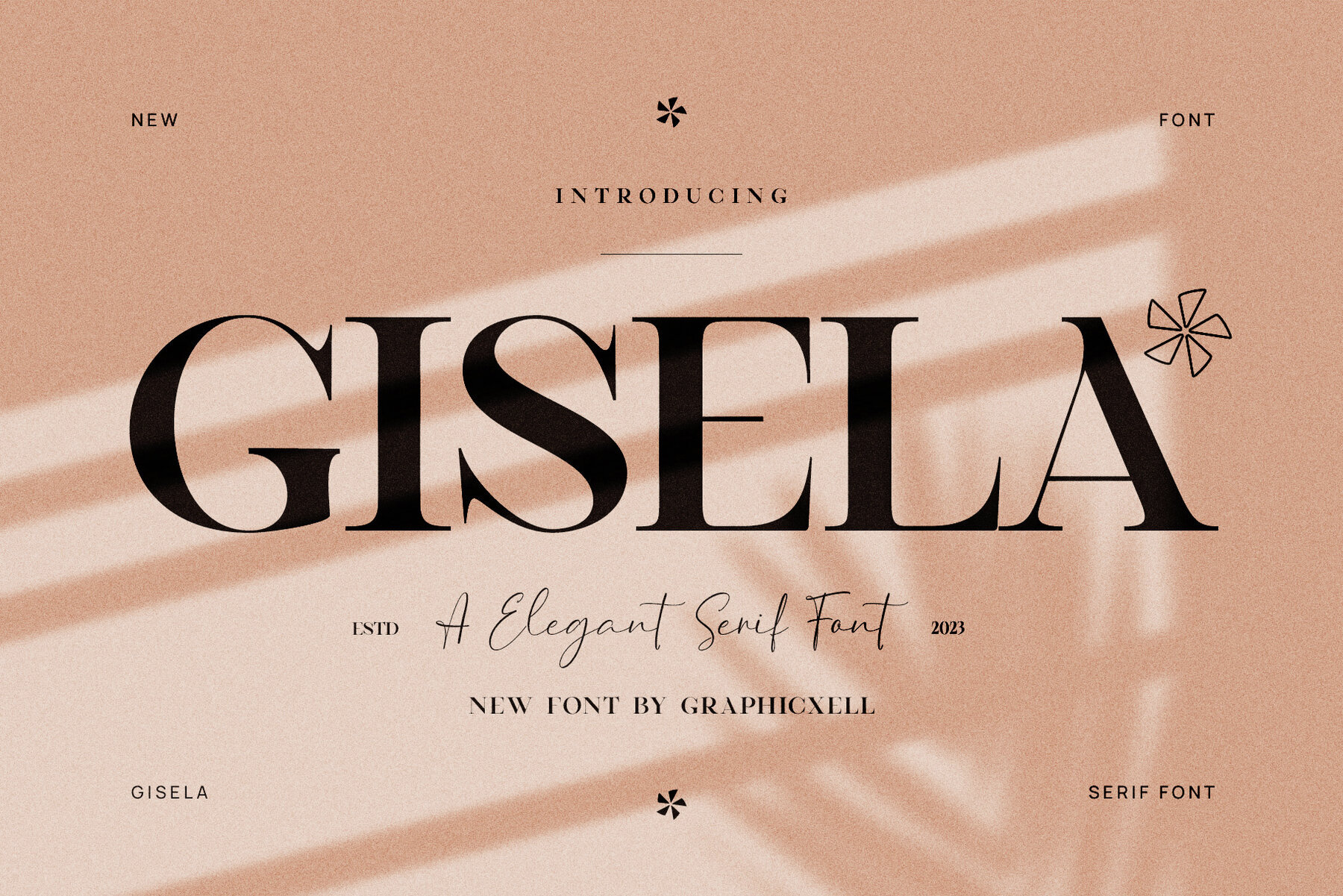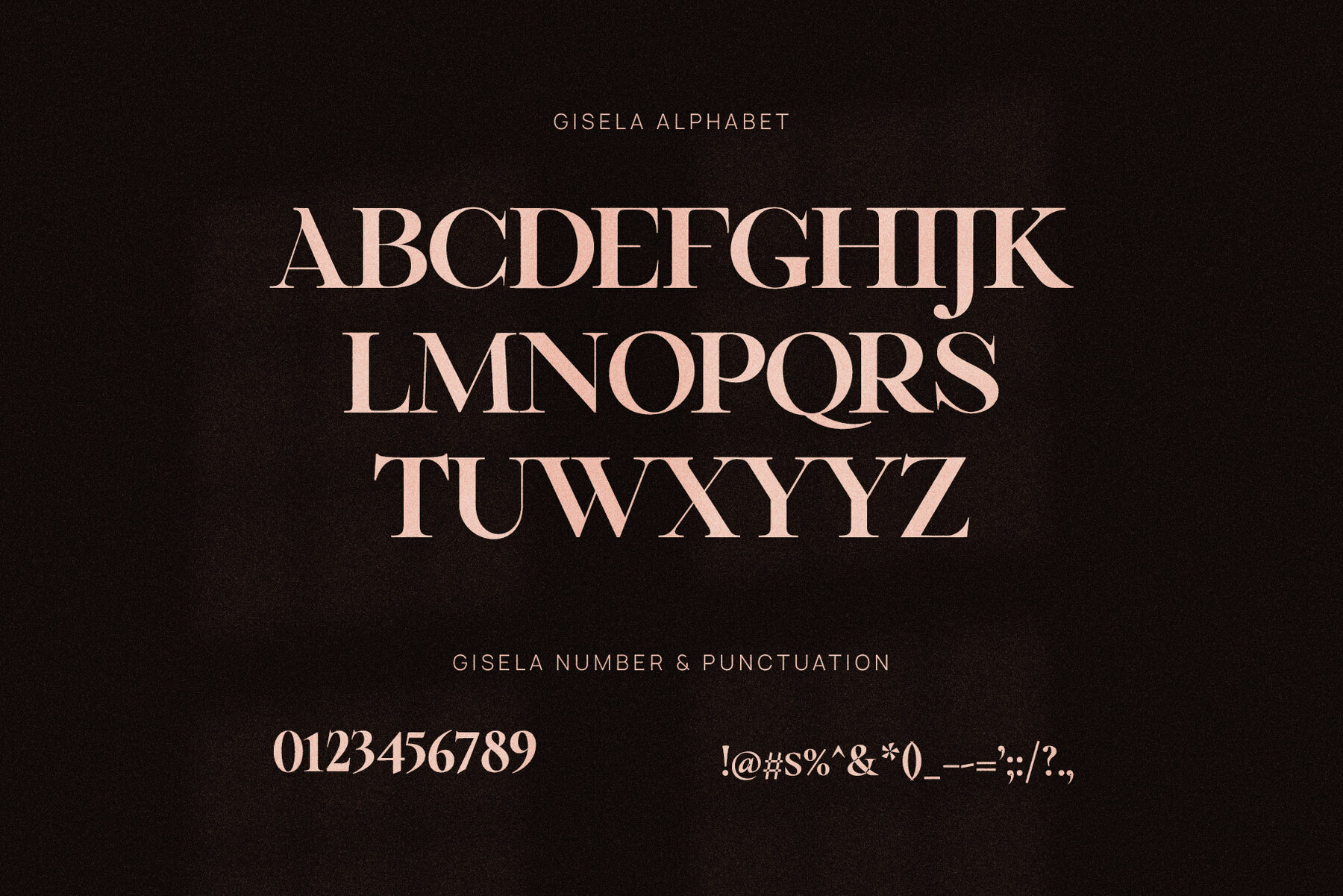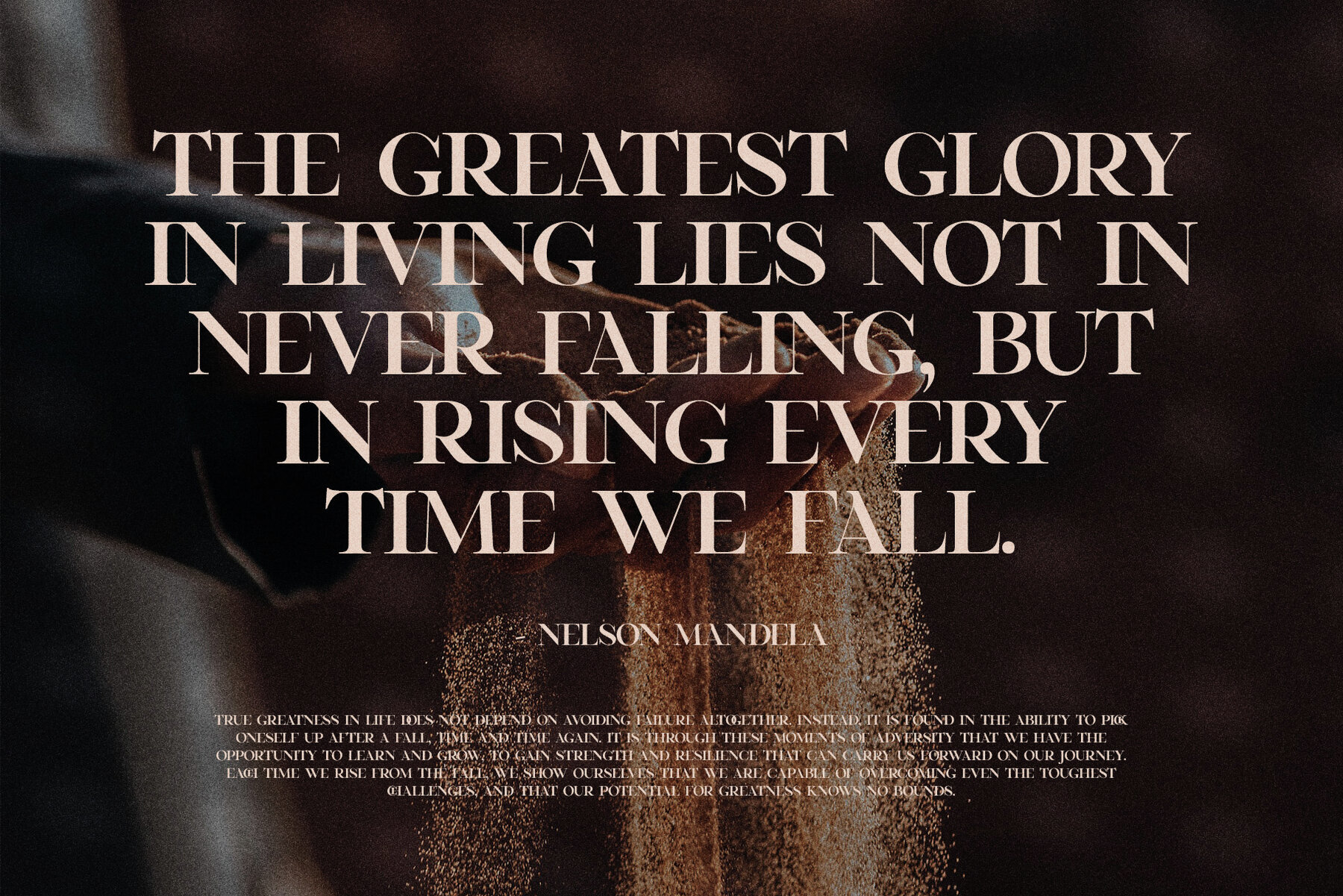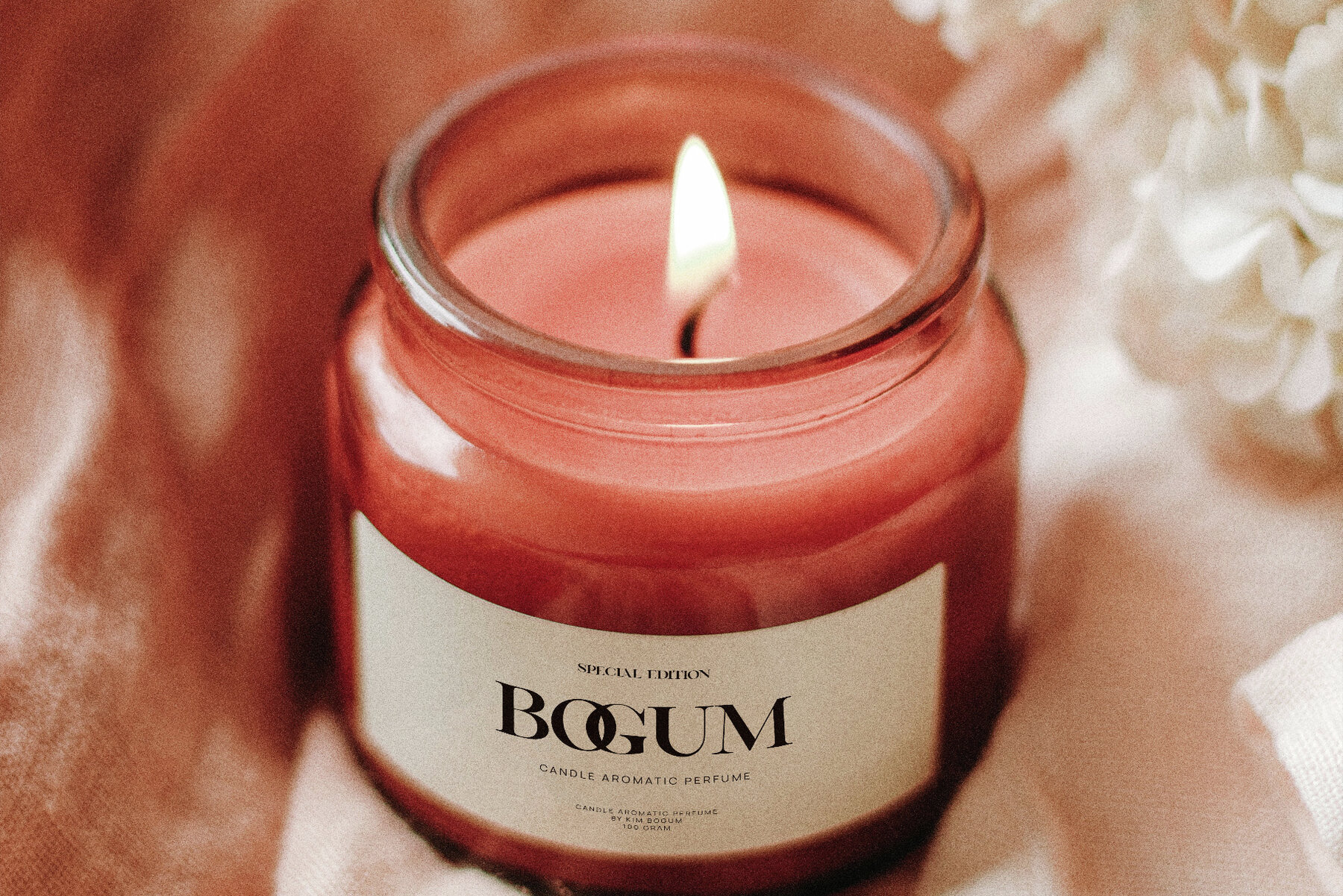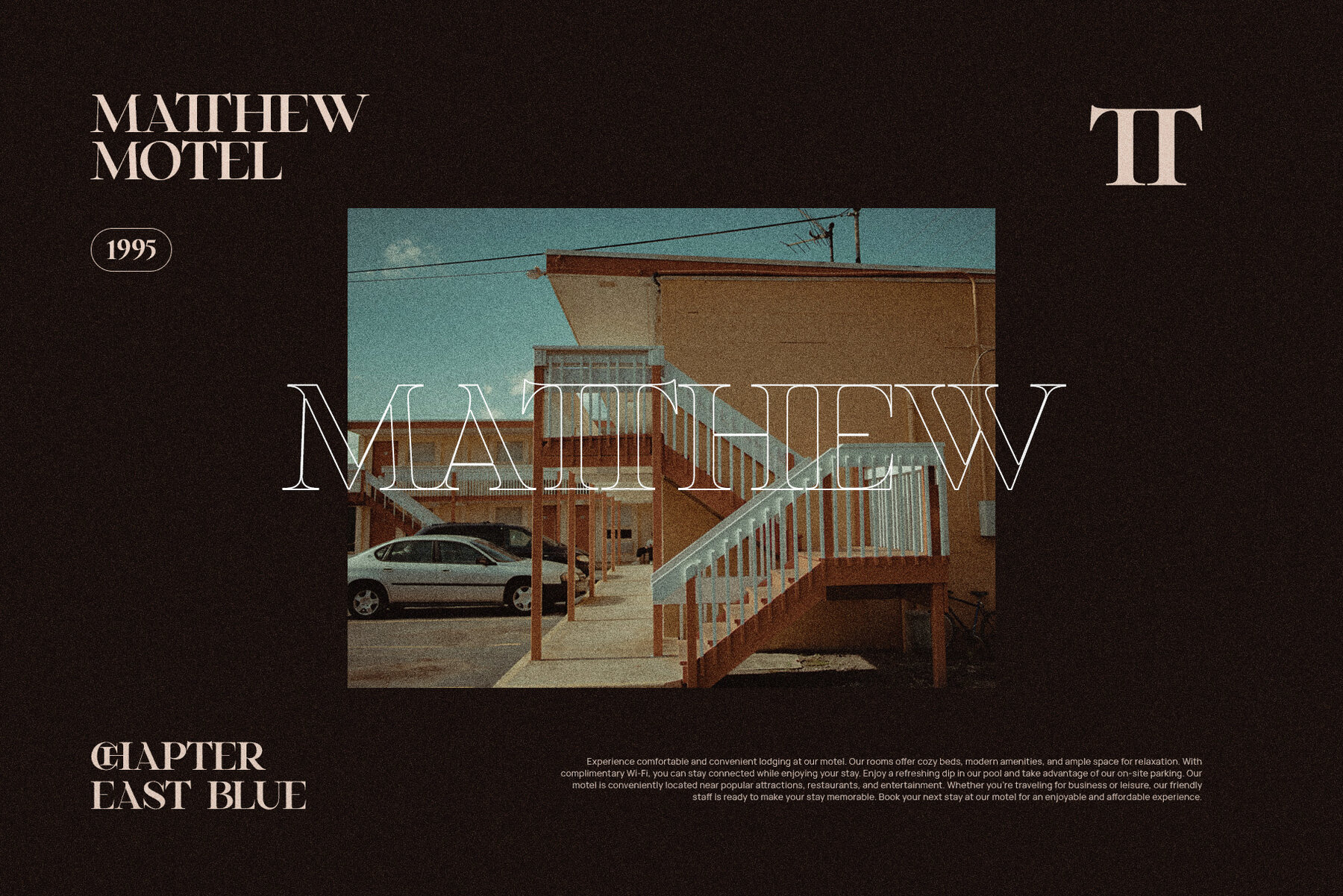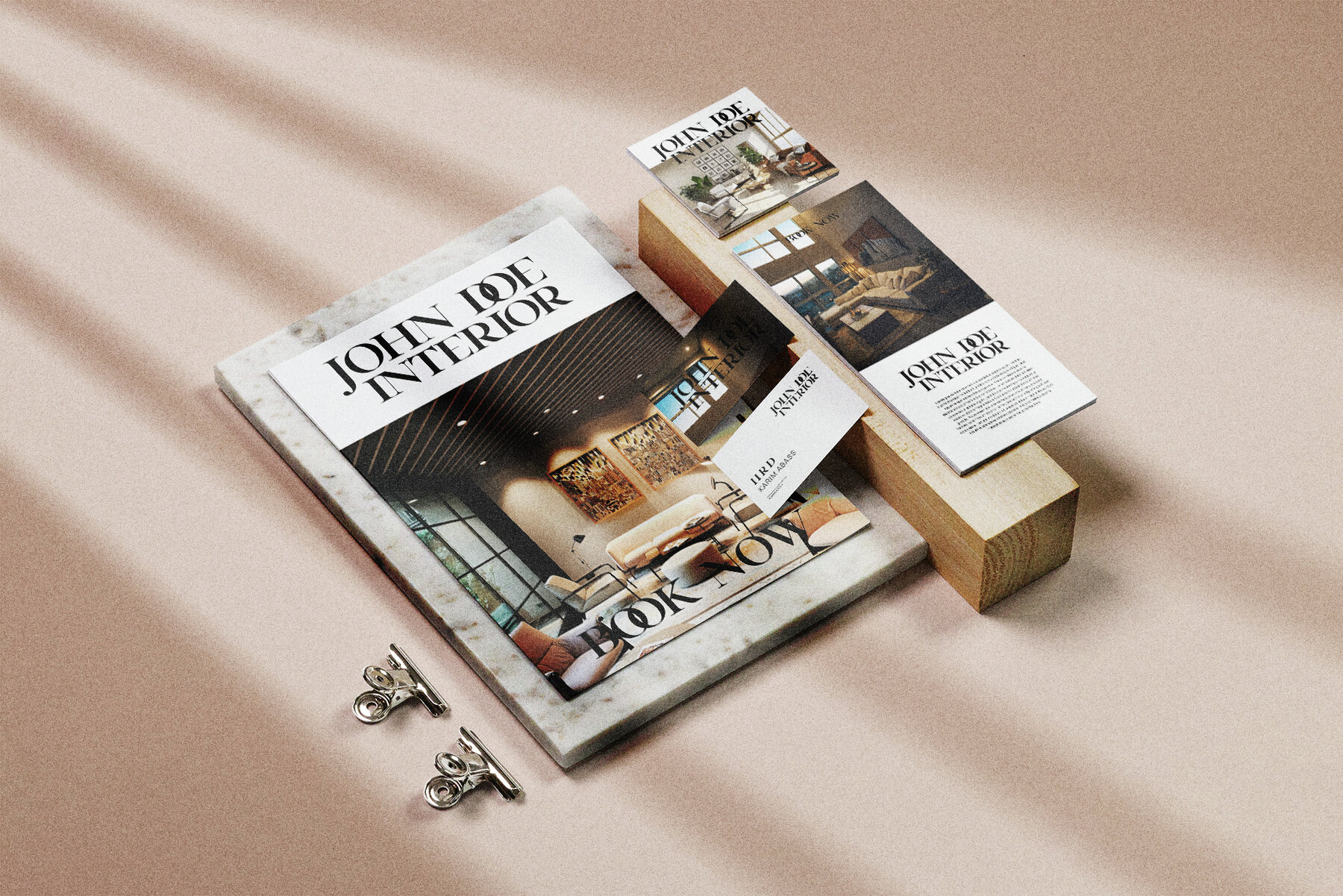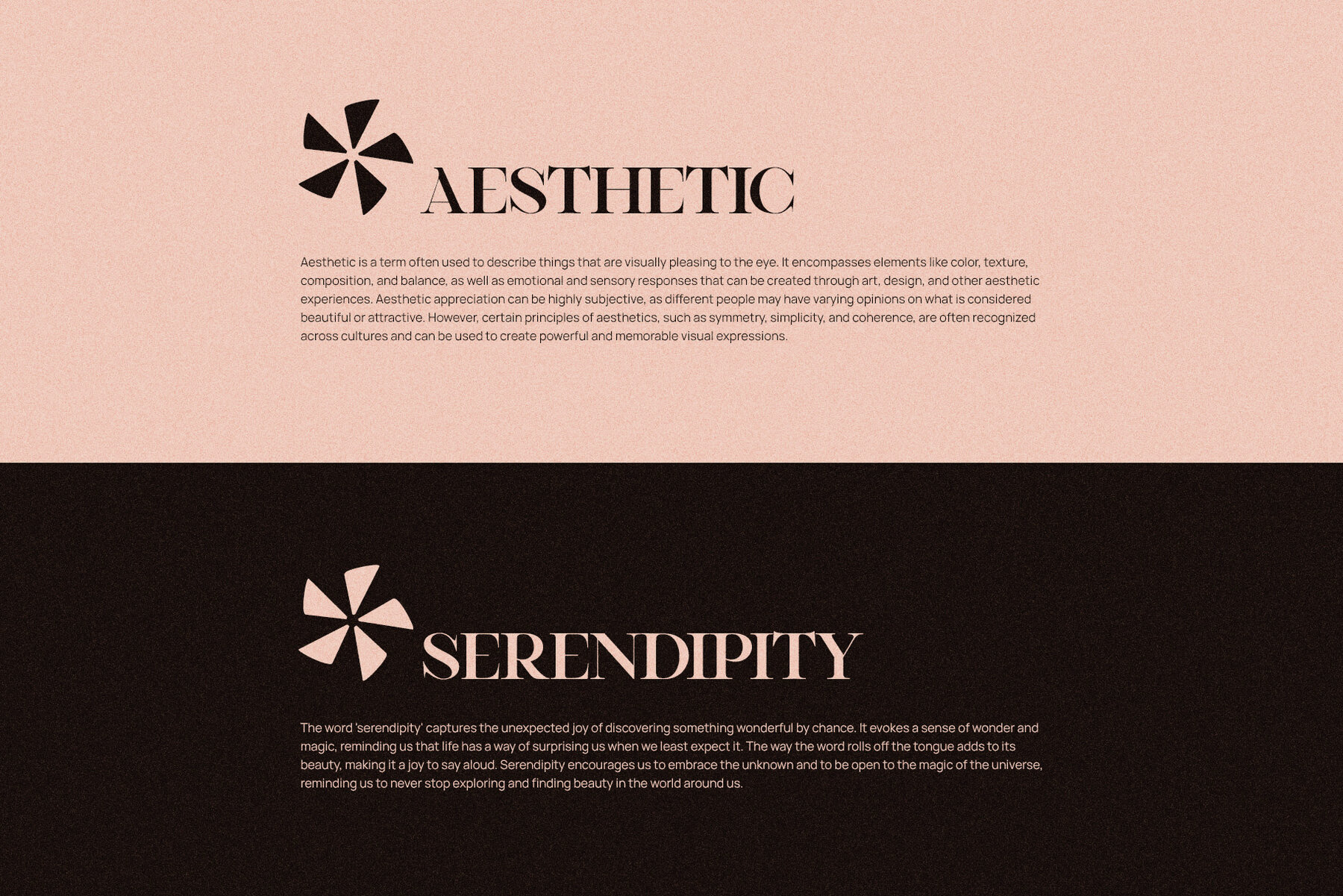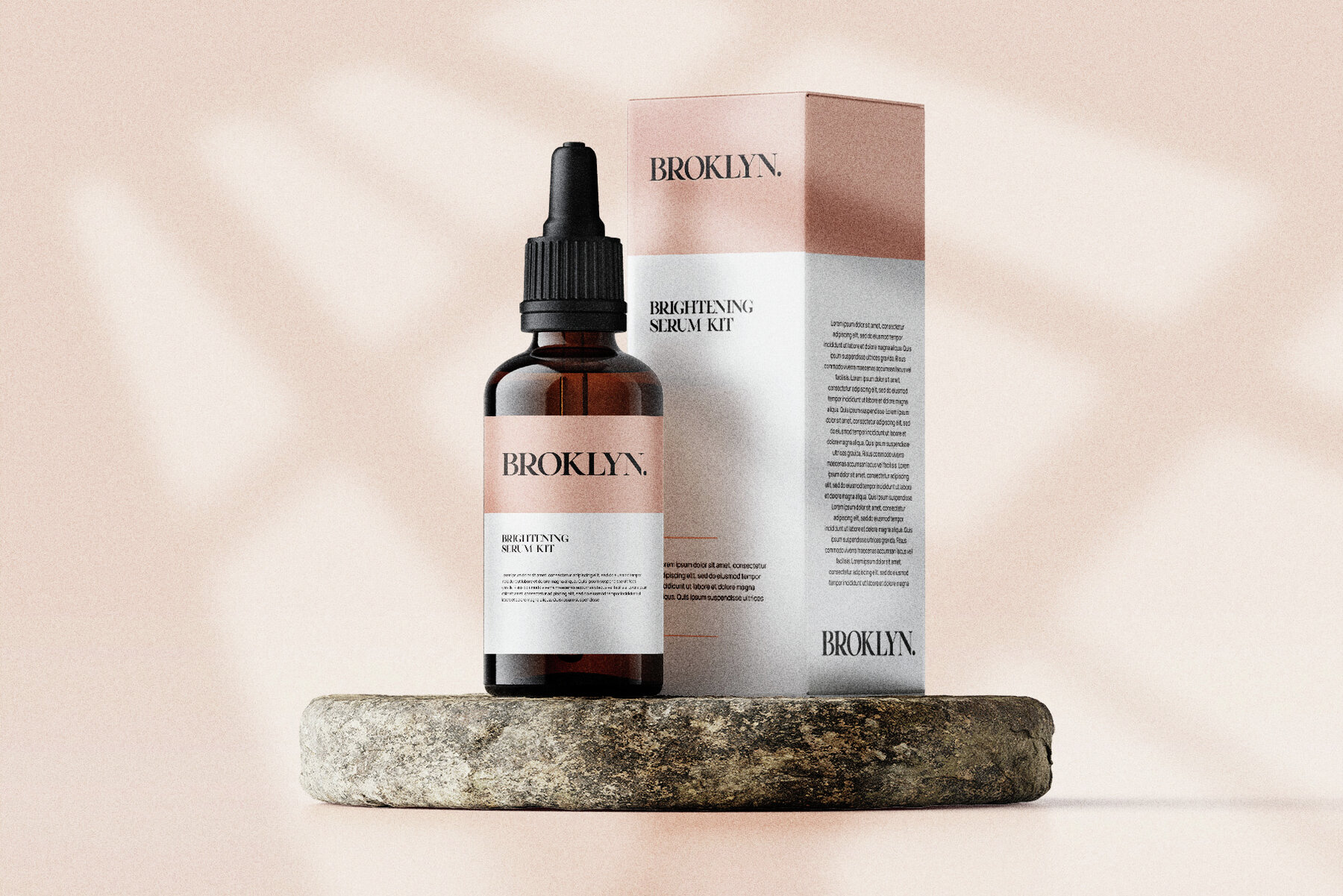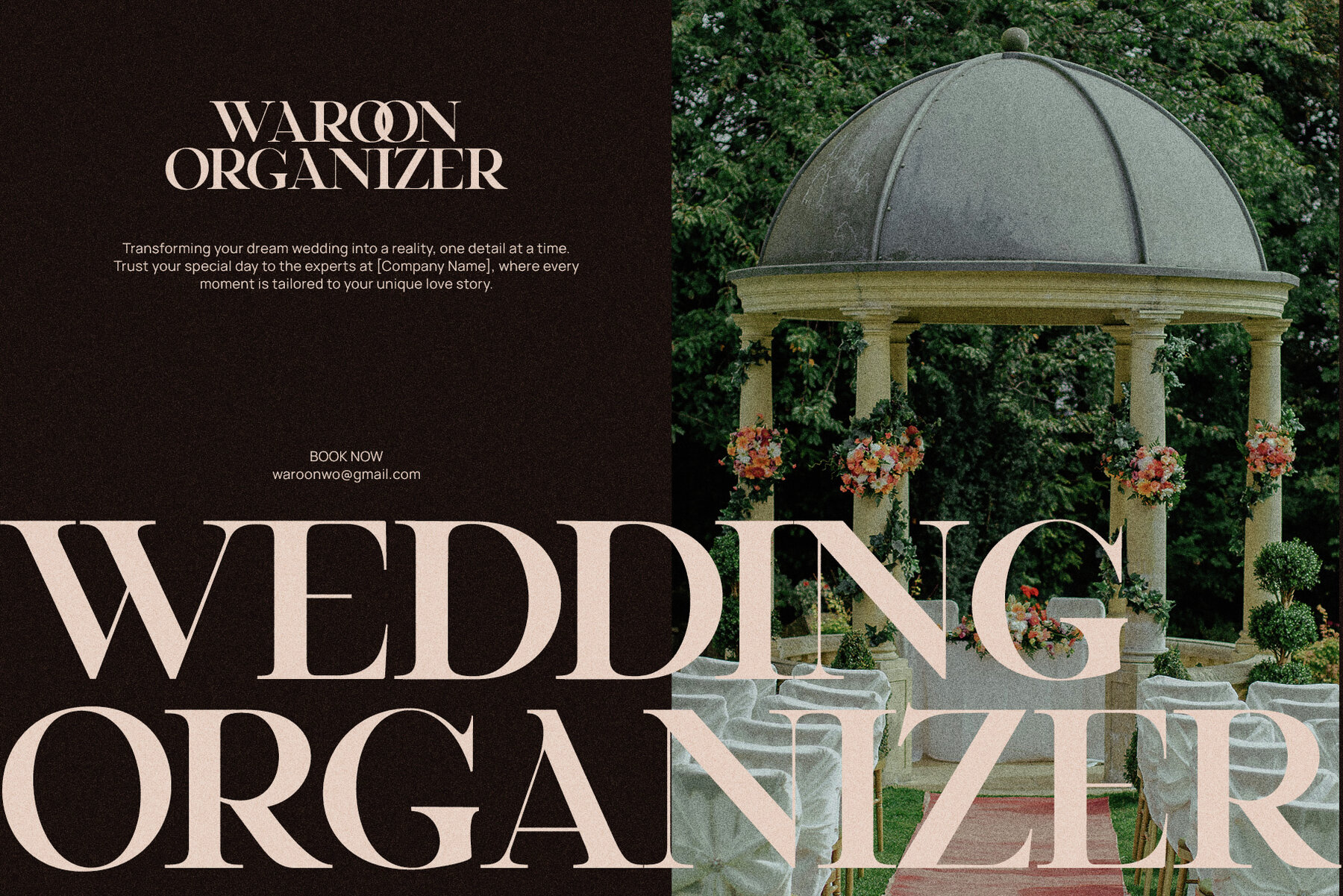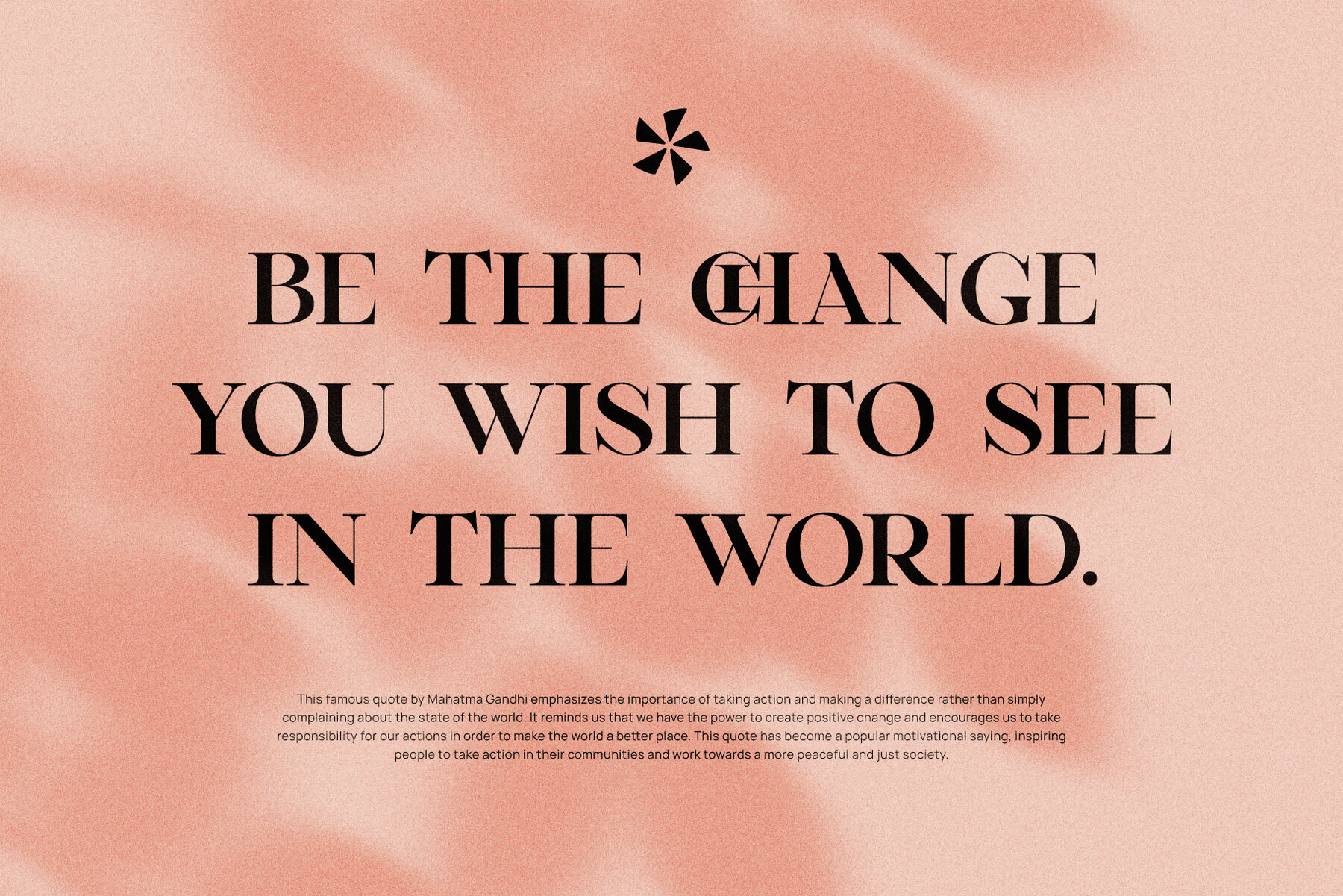
Gisela Font
Gisela Regular
Gisela is a uniquely elegant font tailored for branding and logo designs. Combining a sophisticated serif typeface with a modern flair, this font is ideal for various needs, including branding projects, logos, wedding designs, social media posts, advertisements, product packaging, and more. Created with a high level of readability, Gisela is a dependable choice for any project. For the best results, we recommend using Gisela with design platforms such as Adobe Illustrator or Adobe Photoshop. If you have any questions, feel free to reach out, and we’ll be happy to assist!Gisela: Elegantly Crafted Serif Font for Diverse Applications